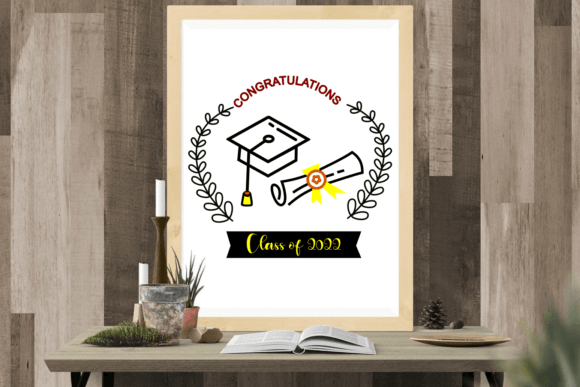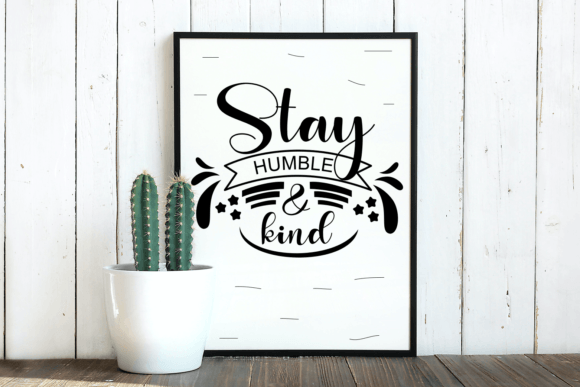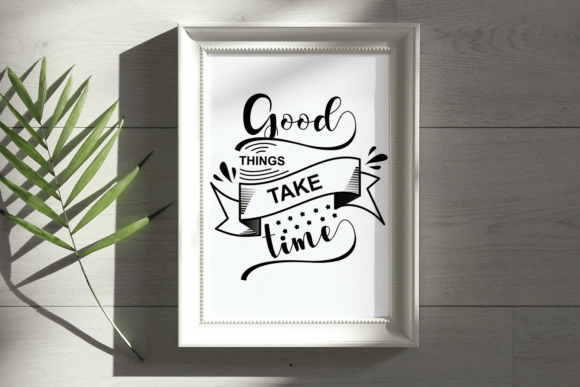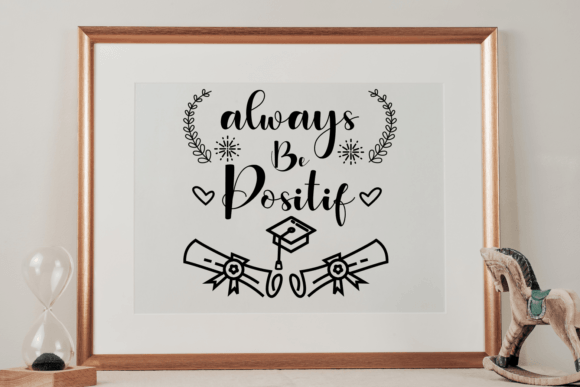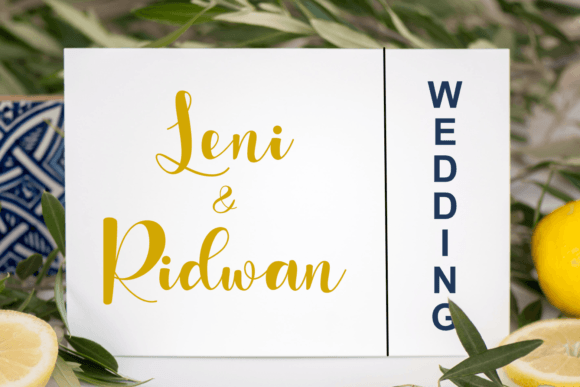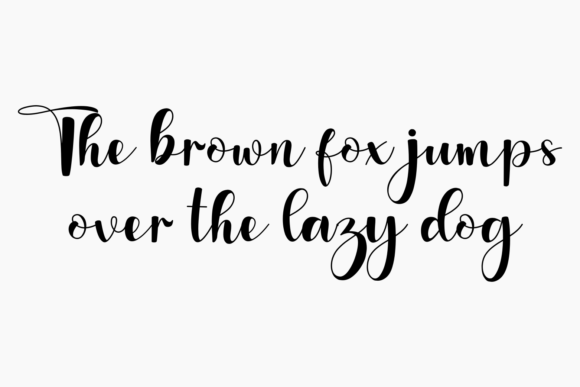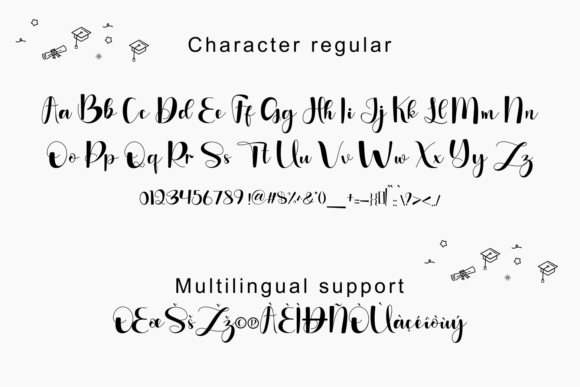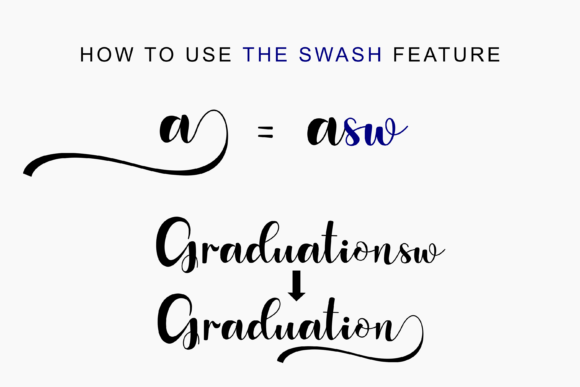
Graduation Font
About Graduation Font
“Graduation” emerges as a romantic and sweet calligraphy typeface, where characters gracefully dance along the baseline, adding a touch of romance and charm to your design projects. This font, with its luxurious appeal, serves as a spark that elevates any creative endeavor it touches. The PUA encoding of Graduation enhances accessibility, ensuring effortless access to its amazing glyphs, ligatures, and swashes.
The calligraphic style of Graduation is imbued with romance and sweetness, making it an ideal choice for projects that aim to convey emotions and sophistication. The characters’ elegant dance along the baseline imparts a dynamic and fluid quality, contributing to the overall romantic atmosphere. Whether used for wedding invitations, love-themed designs, or any project that requires a touch of luxury, Graduation adds a distinctive and heartfelt element.
The luxurious spark that Graduation brings to design projects is particularly noteworthy. The ornate and graceful strokes of the calligraphy typeface make it a perfect companion for upscale events and materials, where an extra layer of elegance is desired. From wedding stationery to high-end branding, Graduation is designed to enhance the visual appeal and luxurious feel of your creations.
The PUA encoding enhances the user experience by facilitating easy access to the font’s amazing glyphs, ligatures, and swashes. This feature allows designers to explore the full range of decorative elements and customize their designs with ease. Whether you’re adding flourishes to letters or incorporating unique characters, Graduation empowers you to infuse your projects with a personalized and sophisticated touch.
In summary, Graduation is more than a font; it’s a romantic and luxurious design asset ready to enhance your creative projects. With its calligraphic elegance and PUA encoding for accessibility, Graduation is well-suited for a variety of design applications where a touch of romance and sophistication is desired. Let Graduation be the enchanting brushstroke that adds a captivating and luxurious spark to your designs.